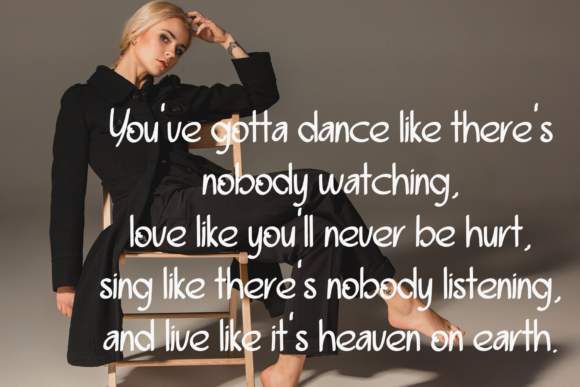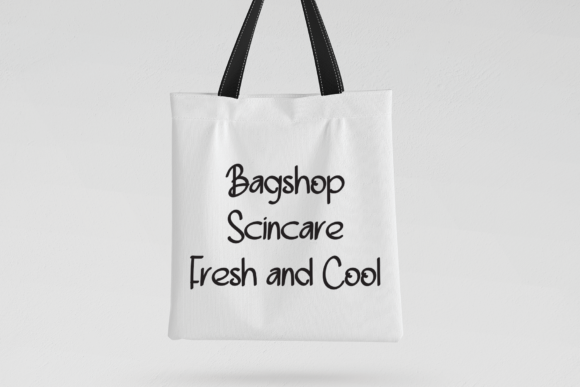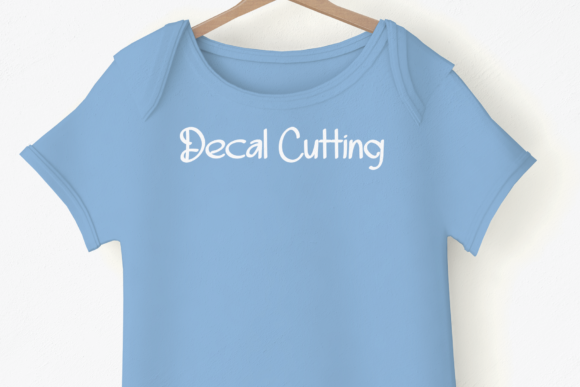
About Banana Font
Banana is a contemporary and versatile handwritten font that adds a touch of simplicity and trendiness to your design projects. Its adaptability and modern appeal make it a great choice for a variety of applications.
For wedding invitations, Banana can bring a modern and fresh vibe to your special day. Its clean and stylish look can complement a range of wedding themes, from minimalist and urban to bohemian and rustic. Whether you’re planning a chic city wedding or a beachside celebration, Banana’s trendy aesthetic can set the tone for a unique and memorable event.
Business cards designed with Banana can help you create a sleek and modern brand identity. Its simplicity and versatility can make your business cards stand out and convey a contemporary and professional image. Whether you’re in a creative industry or a more traditional field, Banana’s trendy handwriting can make your brand more approachable and current.
Greeting cards and social media posts crafted with Banana can capture the essence of modern communication and aesthetics. Its trendy and adaptable style adds a sense of relevance to your messages, resonating with friends, family, and followers. Whether you’re sharing announcements, promotions, or heartfelt sentiments, Banana’s contemporary look can enhance the visual impact of your content.
Banana’s versatility extends to wall art and home decor projects, allowing you to infuse your living space with a modern and artistic flair. Its clean design can complement various interior styles, from minimalist and Scandinavian to eclectic and urban. Whether you’re creating typography prints, wall decals, or decorative accents, Banana’s trendy handwriting can add a touch of contemporary elegance to your surroundings.
In summary, Banana’s simple, trendy, and adaptable handwritten style makes it a versatile font choice for a range of design projects. From wedding invitations and business materials to social media graphics and home decor, Banana’s modern appeal resonates with diverse audiences and contexts, enhancing the overall aesthetic and impact of your creations.